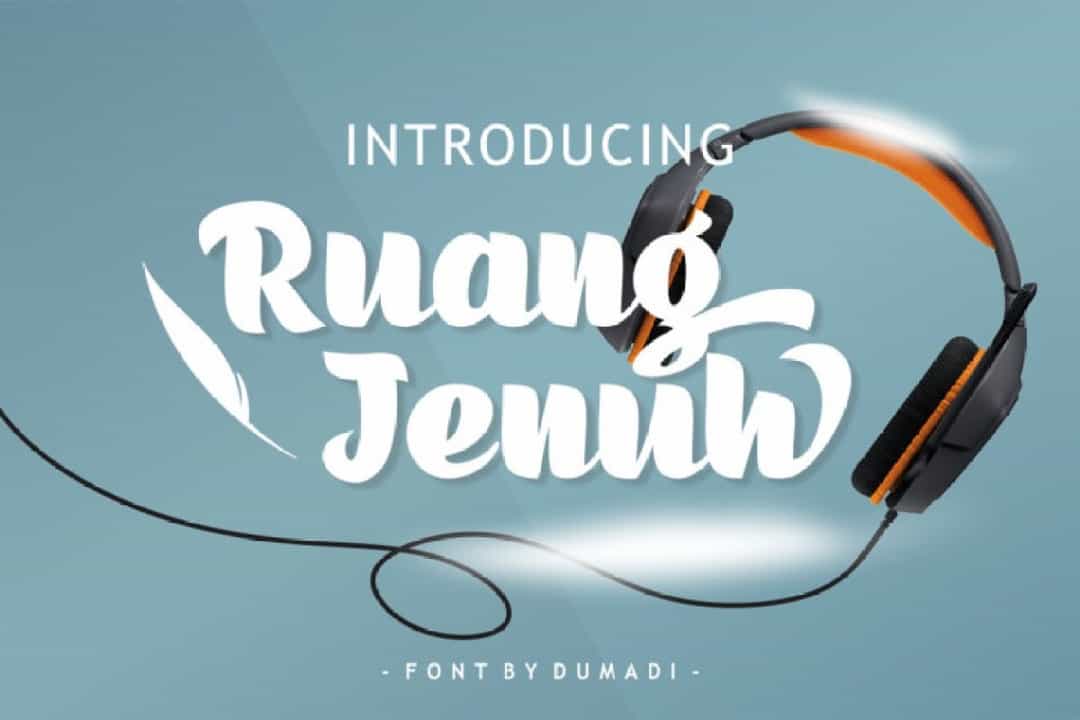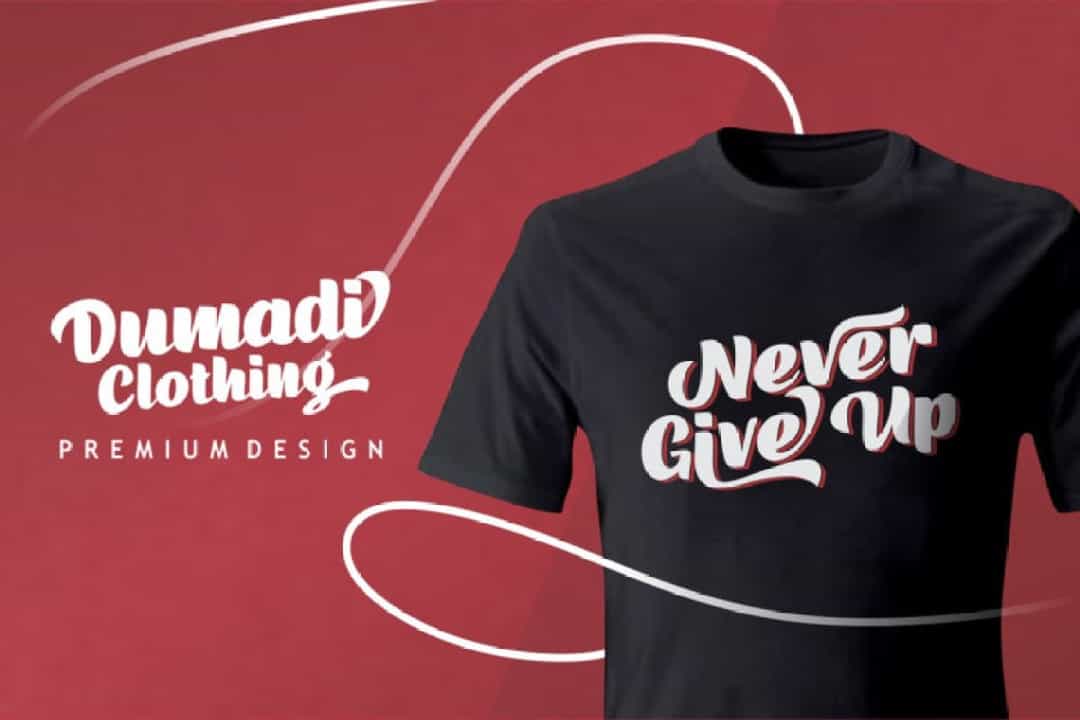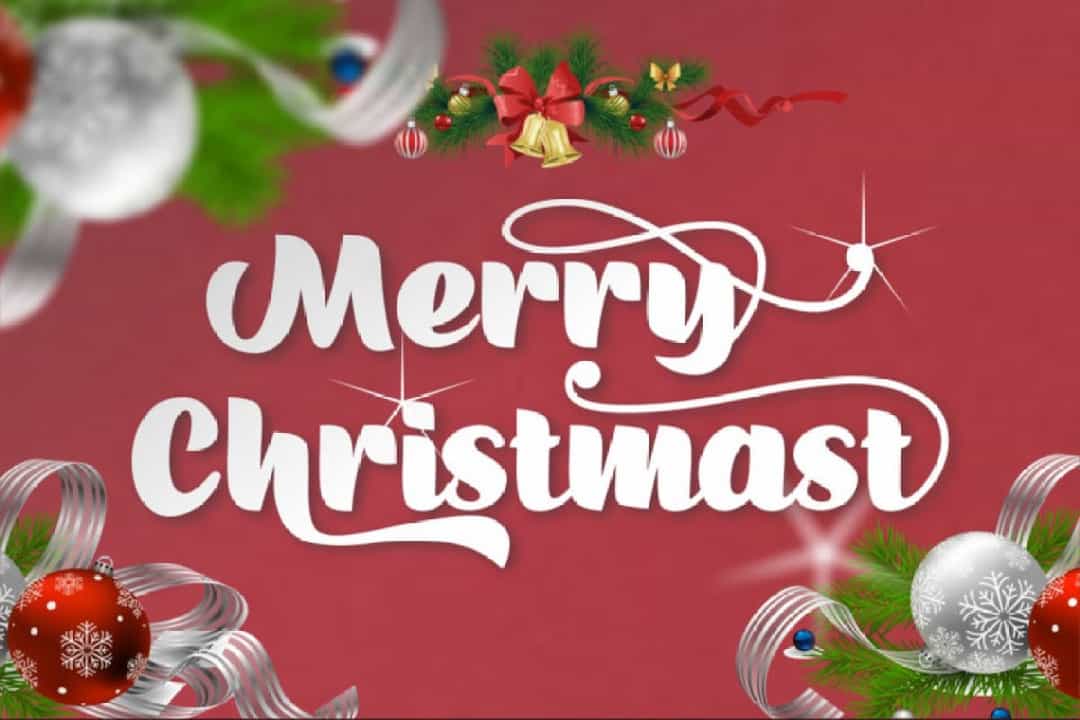
Ruang Jenuh is a modern script font, you can make your branding design look more professional. It is ideal for use either in isolation or combined with other fonts, to create excellent outcomes for various applications such as web logos, program titles and the list goes on.